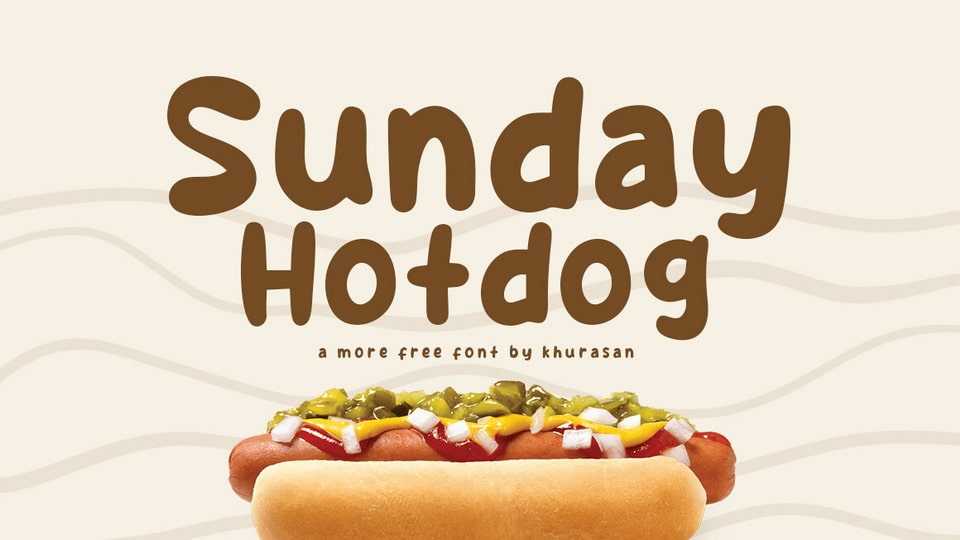
Download Sunday Hotdog font, a hand-drawn typeface with a carnival of cheerful characters, each radiating positivity and infectious energy. Sunday Hotdog font embodies the joy of doodles and the playfulness of scribbles, making it the perfect choice to infuse your projects with laughter and merriment.